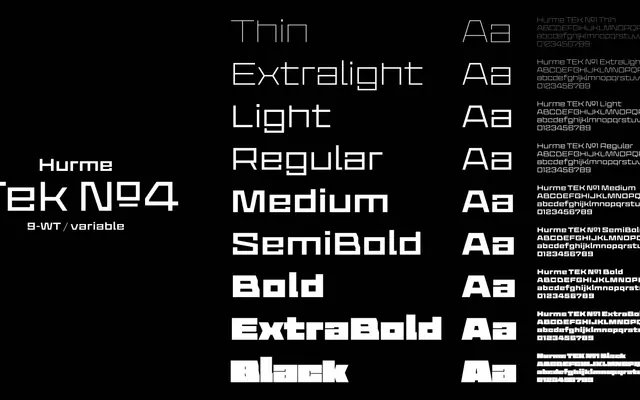
Hurme Tek №4
A wide, curveless monolinear sans built on a mechanical and digital aesthetic, available in nine weights and as a variable font.
Constructed entirely without curves, retaining only diagonals, this wide monolinear sans has a distinctly technical character suited to digital and engineering-influenced design contexts. A large x-height and short ascenders and descenders give it an even, compressed vertical rhythm across all nine static weights. Available as a variable font on a single weight axis, the family covers an extensive range of Latin-based languages.
A wide, monolinear sans with no curves and a mechanical/digital character, constructed from straight strokes and diagonals only, placing it firmly in the geometric sans category with a technical, modular sensibility.